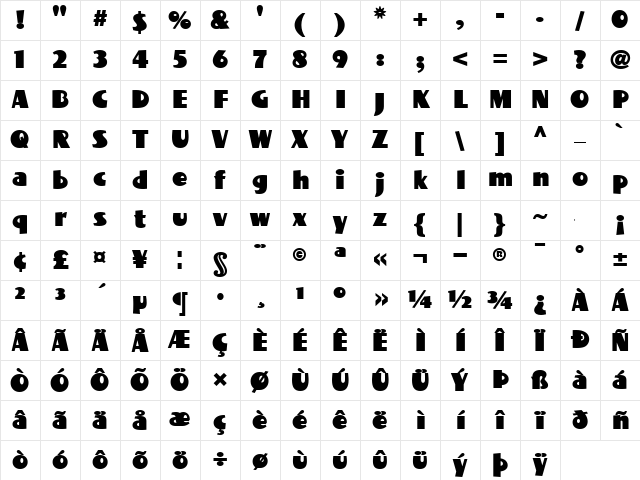
BottleKaps S Condensed Regular
Design Context for BottleKaps S Condensed
BottleKaps S Condensed is a composed and adaptable typeface that performs quietly and consistently across a wide range of design contexts. Its narrow stance lets it pack a punch even in space-constrained designs.